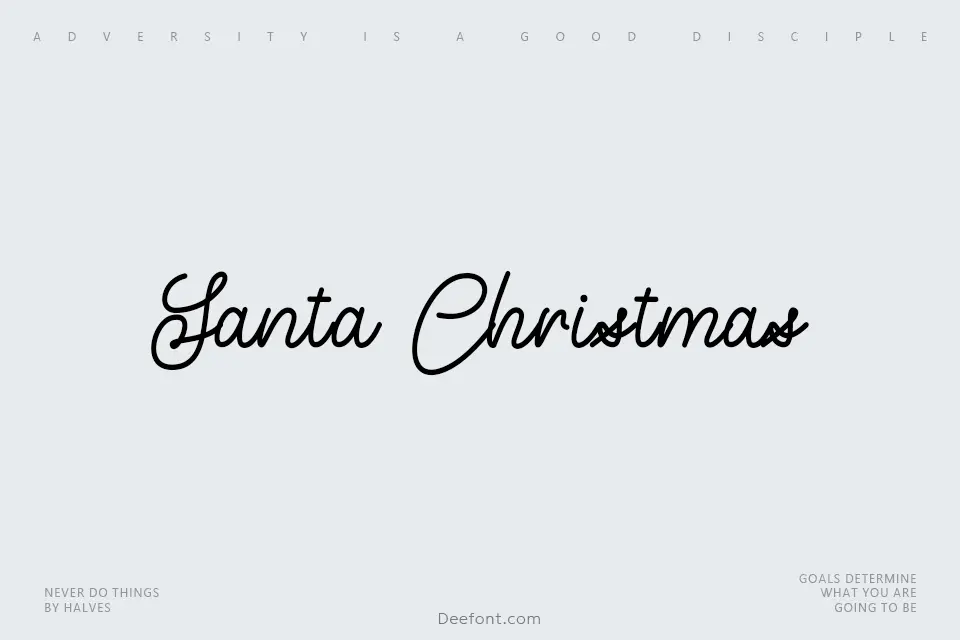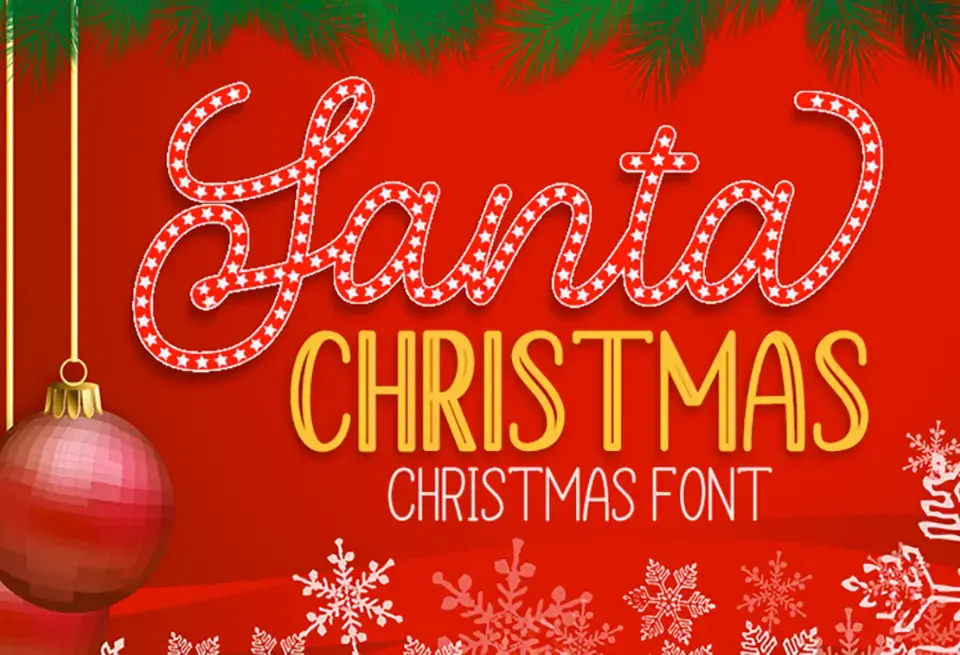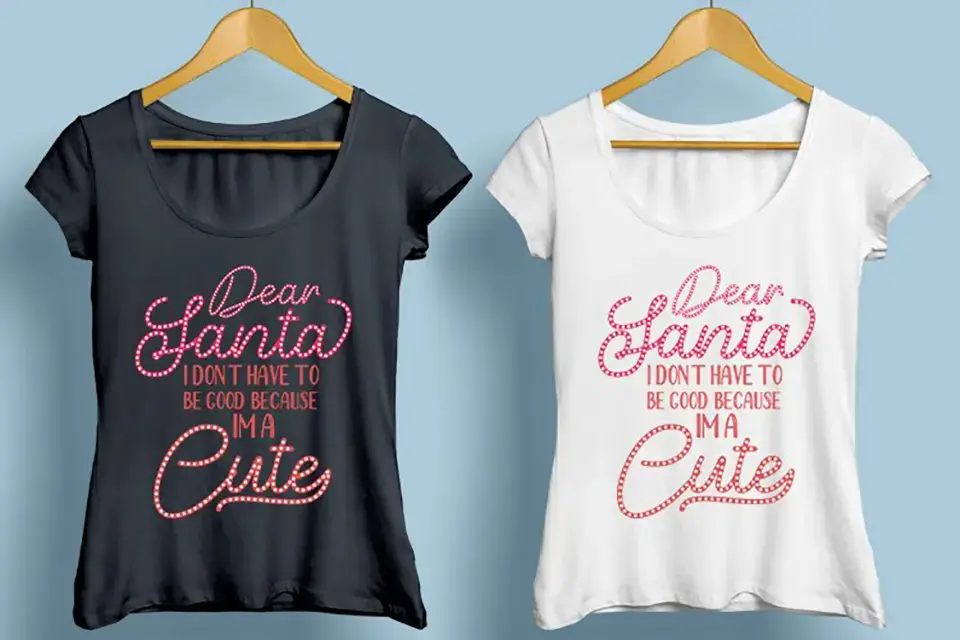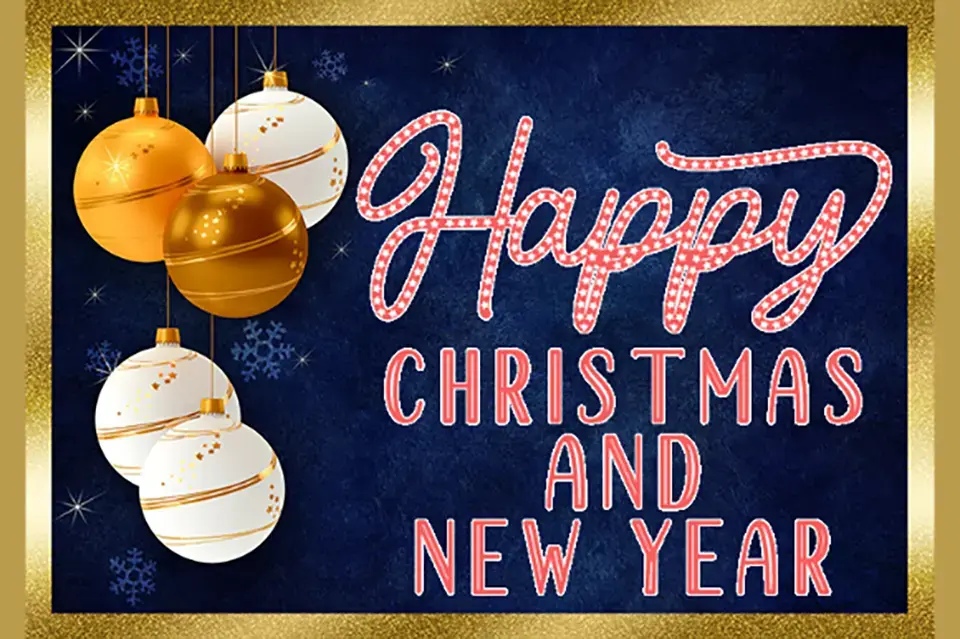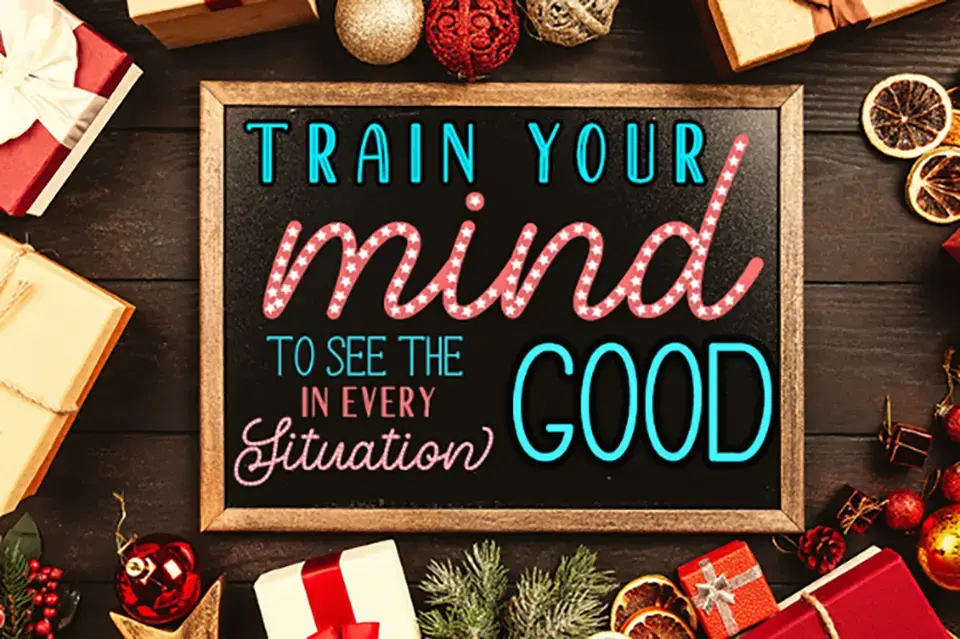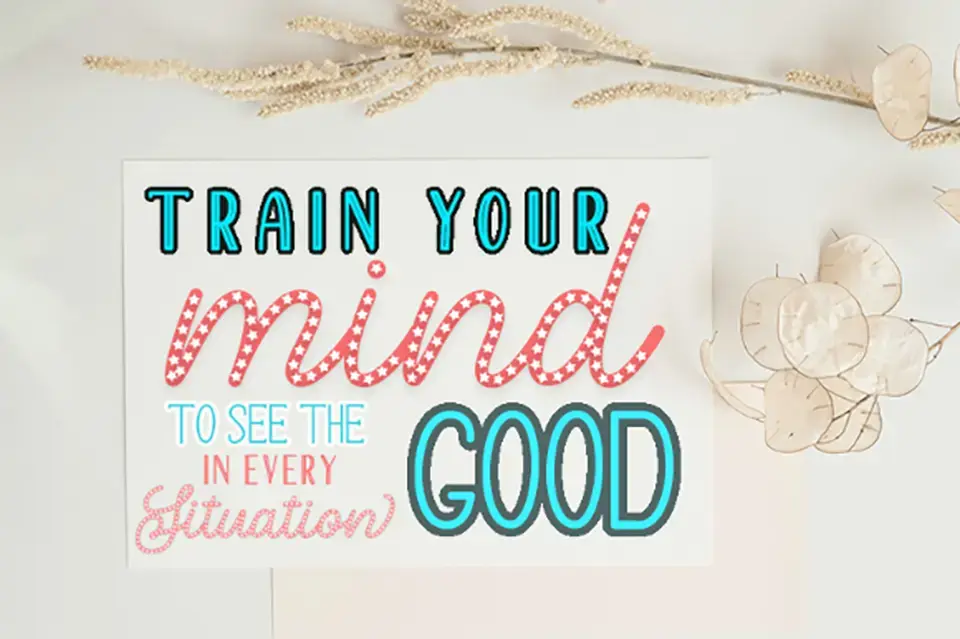
Santa Christmas Font
Santa Christmas is a festive display font created by YonType Studio, perfect for holiday projects and seasonal designs. This charming handwritten-style typeface features playful, decorative characters ideal for Christmas cards, festive posters, and celebratory graphics. With its whimsical charm and warm personality, this font brings instant holiday spirit to any creative work. Available as a free download for personal use, it offers three font file variations to suit different design needs. The font includes 238 glyphs for comprehensive character support, making it versatile for various holiday-themed typography projects.